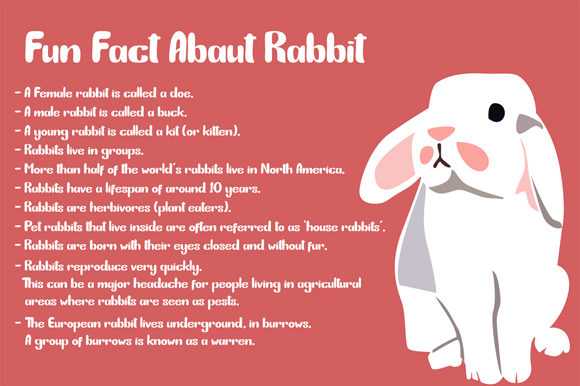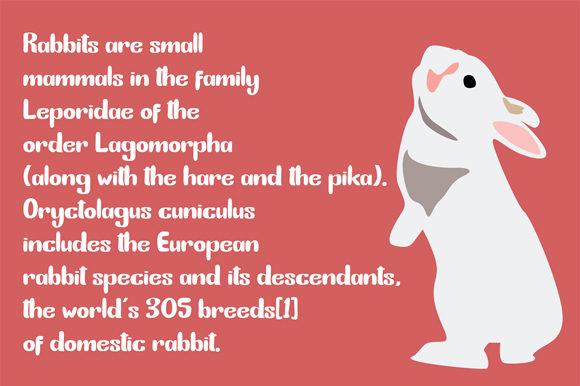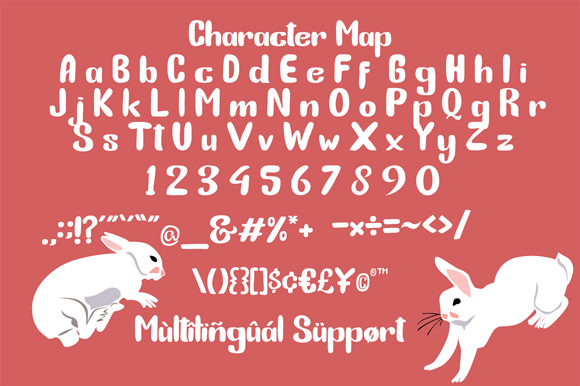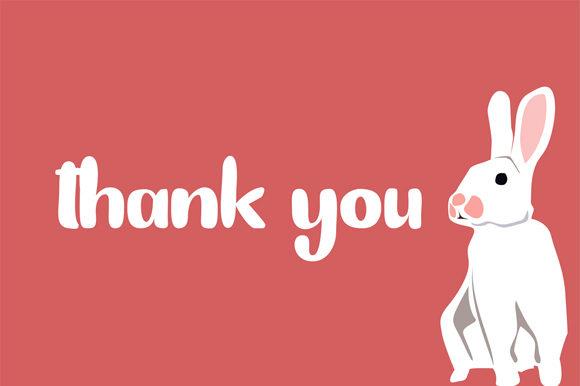
The Perfect Touch of Whimsy: Introducing Bunny Funny Font
We’ve all been there – brainstorming a new idea, scribbling down notes in a mad rush, and voicing our thoughts in a hurried tone. It’s in these moments of creative chaos that we often stumble upon something truly special. The feeling of jotting down ideas in a playful, handwritten font is not only satisfying but also adds a personal touch to our work.
That’s where the Bunny Funny Font comes in – a delightful mixed case font that captures the essence of a handwritten note. Designed to evoke a sense of playfulness and informality, this font is perfect for adding a human touch to your projects. Whether you’re working on editorial design, branding, or creating art quotes, the Bunny Funny Font is an invaluable asset for designers looking to add a personal touch to their work.
Bunny Funny Font Key Features
- Unique Characteristics: Bunny Funny Font features a playful, cartoonish design with exaggerated lines and rounded shapes, making it ideal for children’s books, comics, and other fun projects
Bunny Funny Font Review
Overall, I have mixed feelings about the “Bunny Funny Font”. On one hand, it’s a cute and playful font that can add a lighthearted touch to any design project. ✨ The font’s whimsical nature makes it perfect for children’s books, cartoons, or any other project that requires a fun and carefree vibe. ✨ The font is also highly customizable, allowing designers to adjust the color, size, and style to suit their needs.
However, I do have some reservations about the font’s limitations. ⚠️ For one, it’s not suitable for serious or formal projects, as it can come across as too playful or immature. ⚠️ Additionally, the font’s design can be a bit too busy or overwhelming in larger sizes, which may detract from the overall message or design.
- Cute and playful design
- Perfect for children’s books, cartoons, or other fun projects
- Not suitable for serious or formal projects
- Can be too busy or overwhelming in larger sizes
Overall, I would recommend the “Bunny Funny Font” for designers who are looking for a lighthearted and playful font for a specific project. However, it’s not a font that I would use for every project, as it can be a bit too niche or limiting in certain situations.